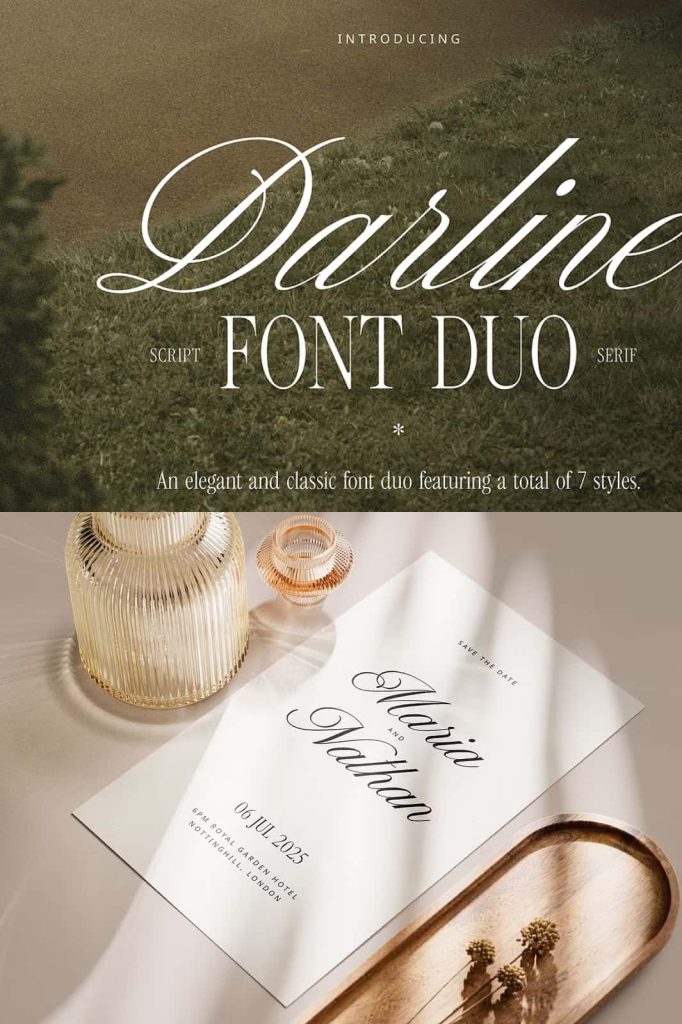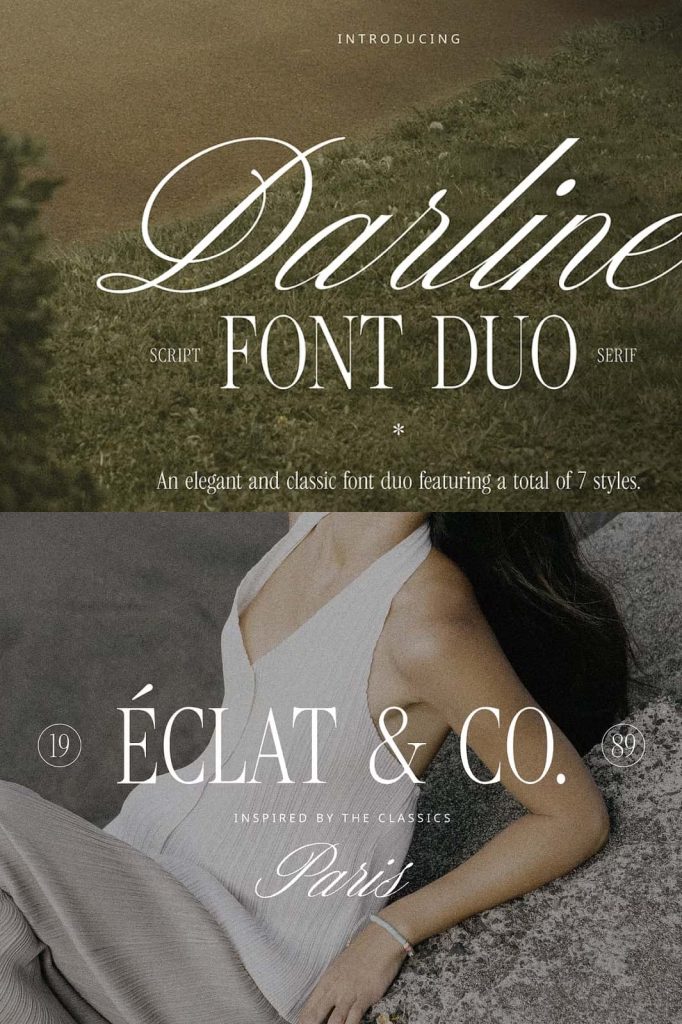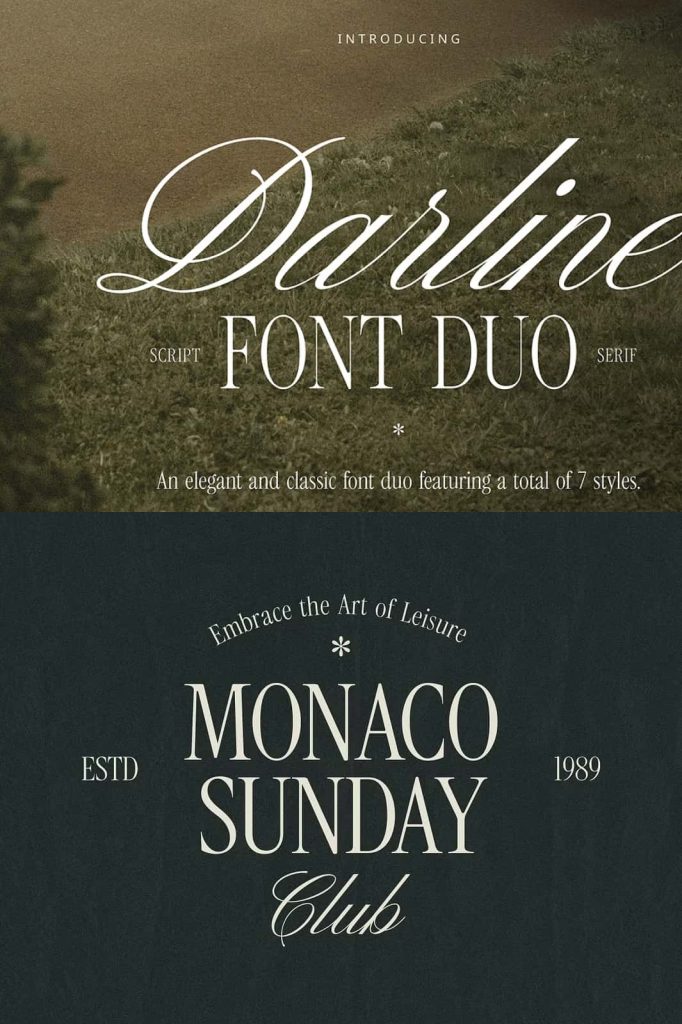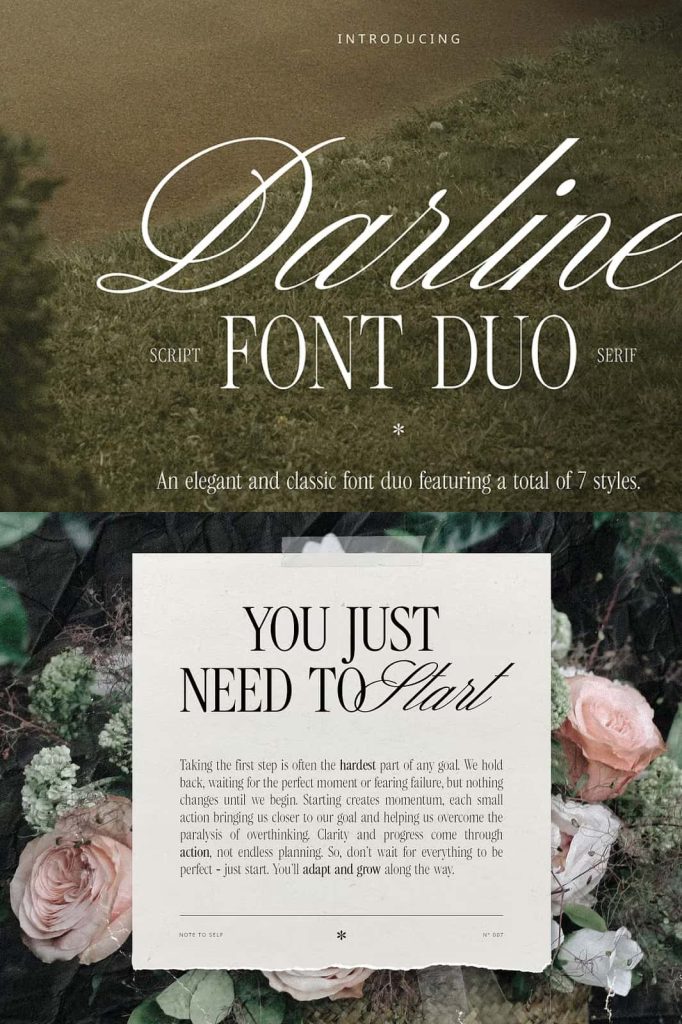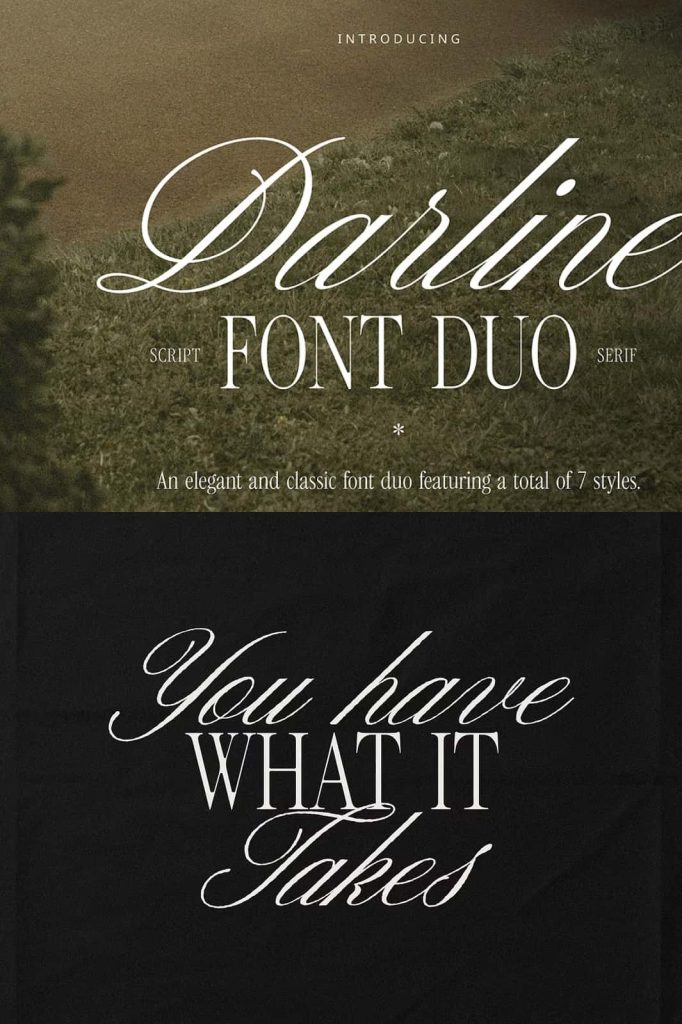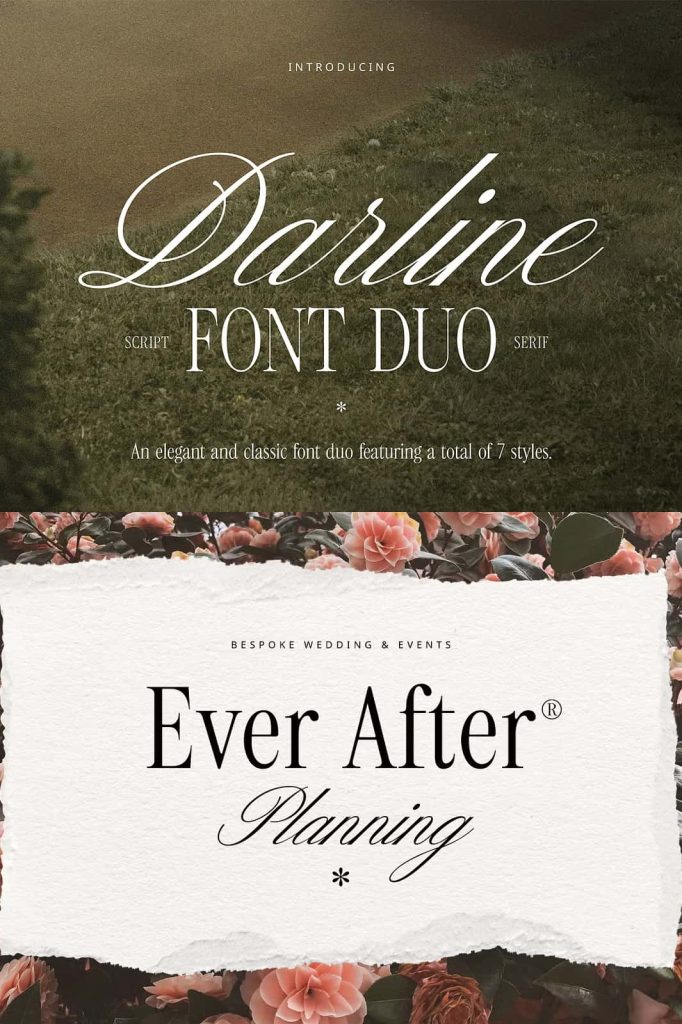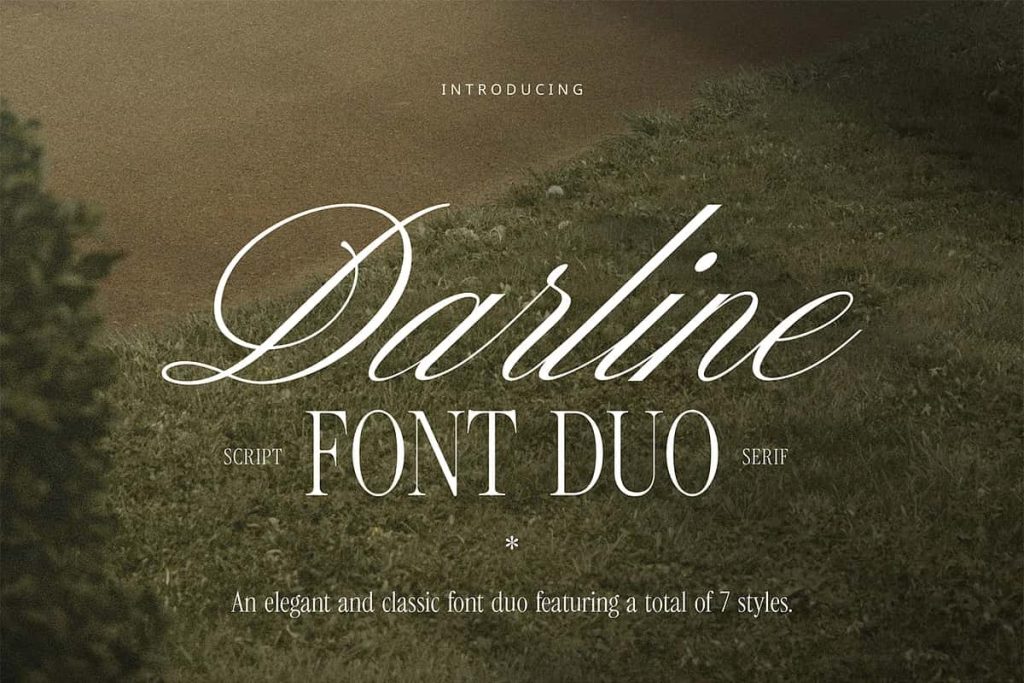
Darline Font DuoleastedNovember 13, 2024Fonts Meet Darline Font Duo, a harmonious blend of serif and script styles that creates a balanced, refined look. Download